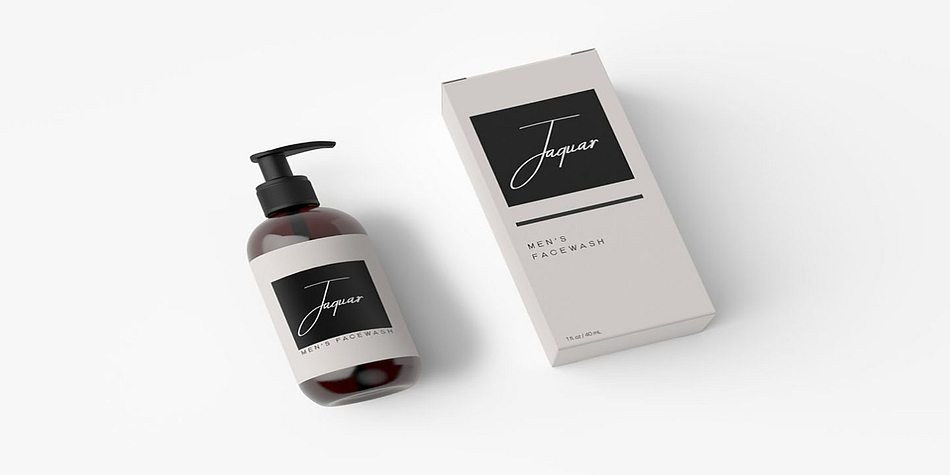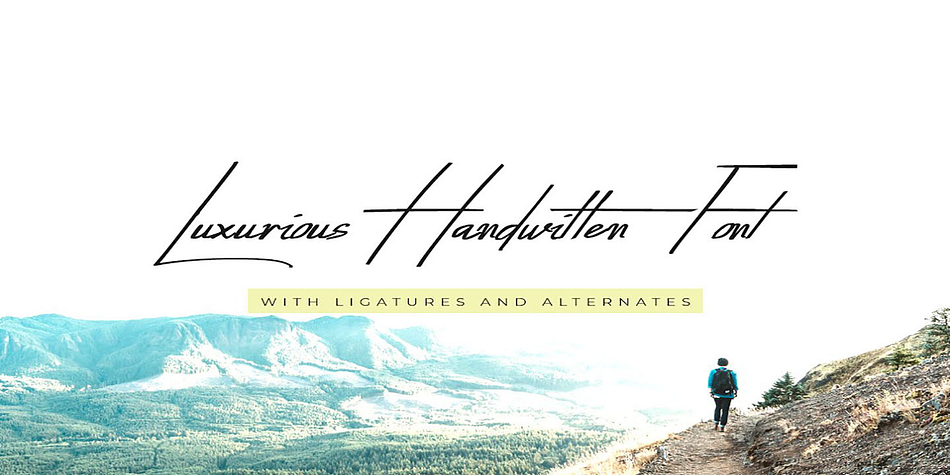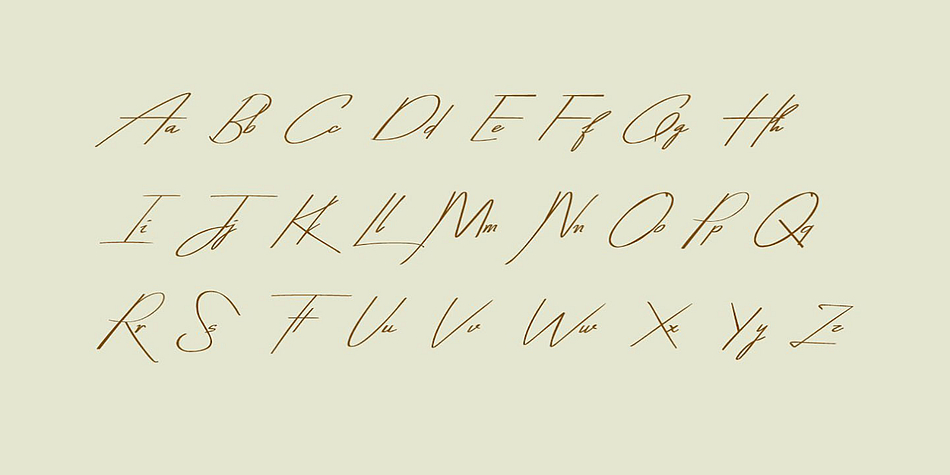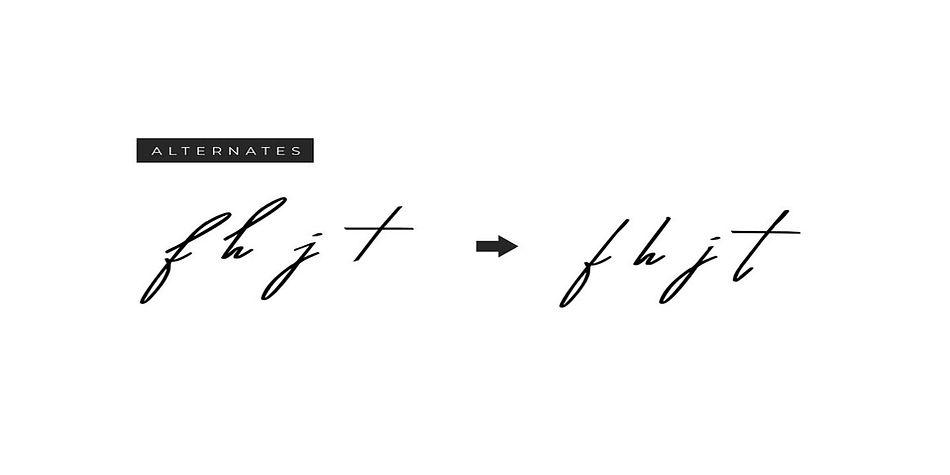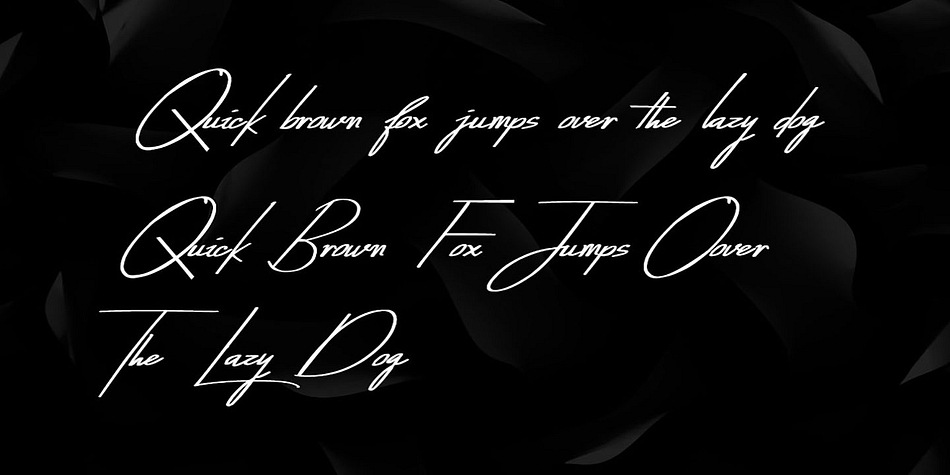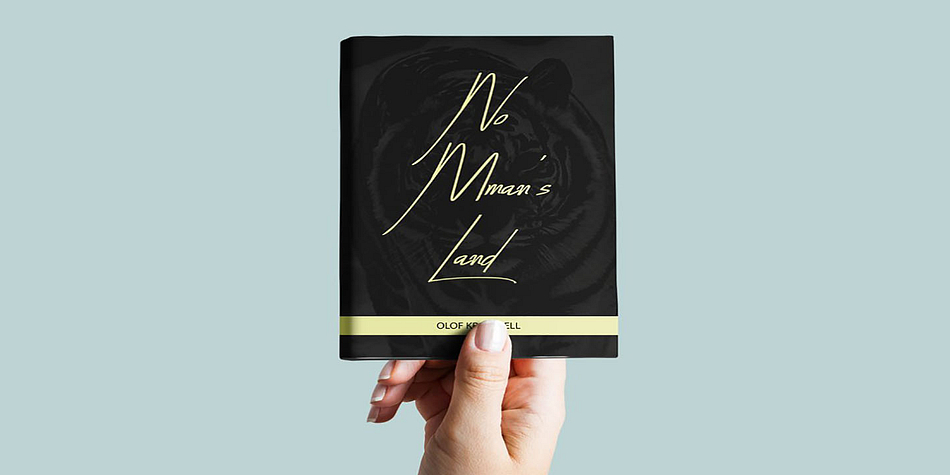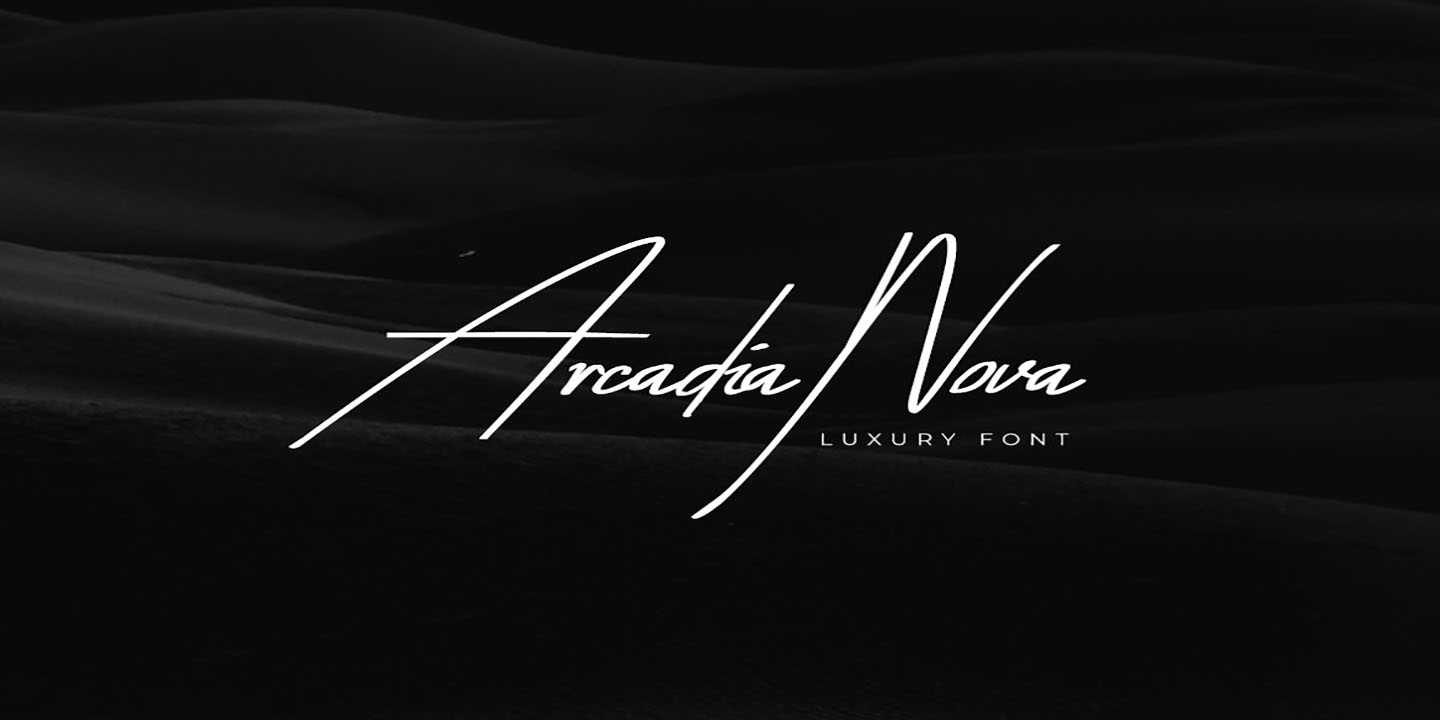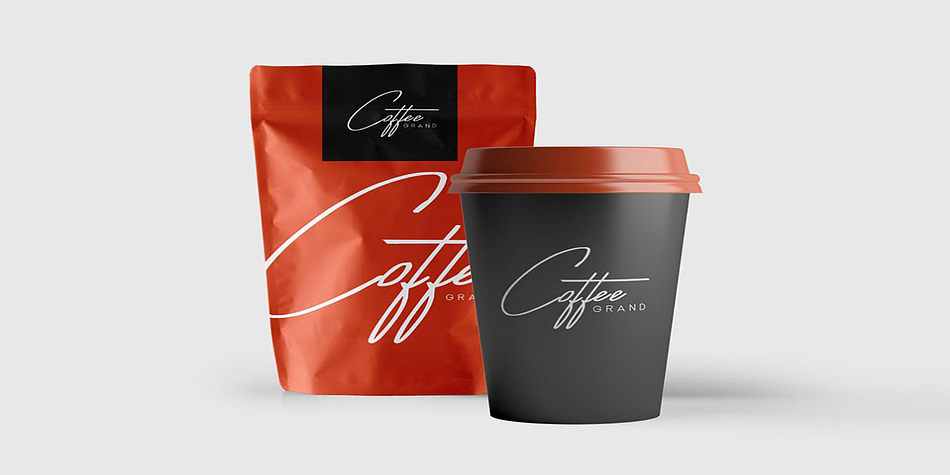
Arcadia-Nova
Arcadia-Nova is a hand drawn font family published by Fontastica.
Arcadia-Nova is a stunningly beautiful handwritten font for luxury / branding / wedding invites / greeting cards / promotional graphics. Arcadia-Nova is handmade precisely adding a finest touch of perfection and aesthetics at it’s level best.
Advanced Kerning & Essential Ligatures:
We have performed advanced, in-depth kerning to make sure the font looks amazing on all possible letter combinations. Arcadia-Nova includes all essential ligatures shown in the preview (more will be added in next update).